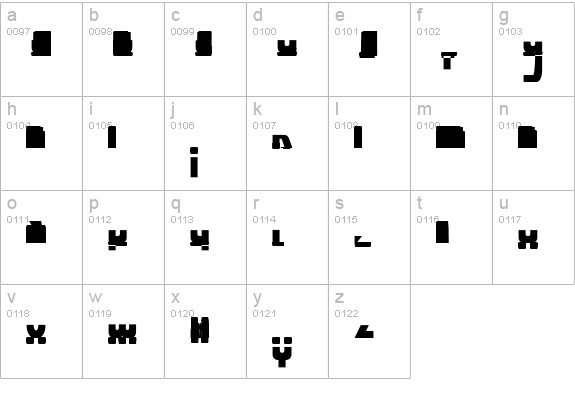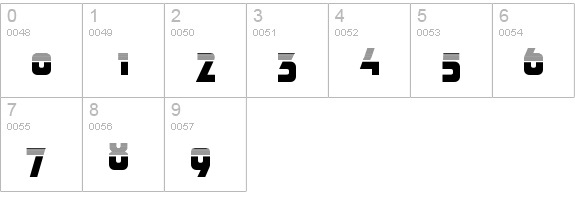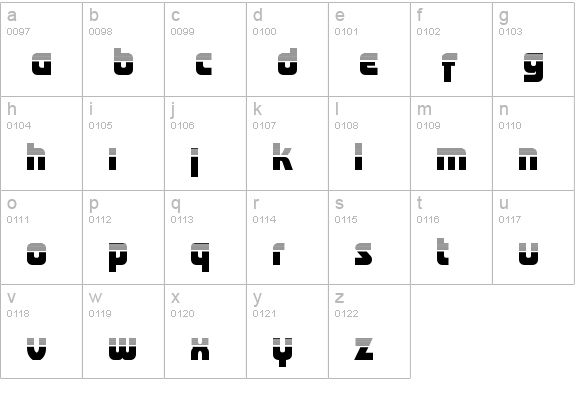
Anatol MN font is a versatile and elegant typeface that exudes sophistication and modernity. With its clean lines and balanced proportions, this font is perfect for a wide range of design projects. Whether you are creating a logo, website, or print materials, Anatol MN font will elevate your design to the next level. What sets Anatol MN font apart is its unique blend of classic and contemporary elements, making it a standout choice for designers looking to make a statement. The font's versatility allows it to be used in both headlines and body text, giving your designs a cohesive and polished look. And the best part? Anatol MN font is free to download at FontsMarket.com. This means you can access this premium font without breaking the bank, making it an invaluable addition to your font library. So why wait? Elevate your designs with Anatol MN font today!